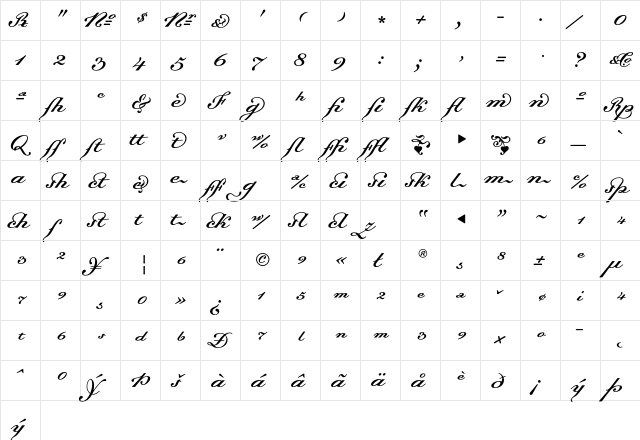
Dalliance ScriptLigatures
Design Context for Dalliance Typeface
Dalliance flows with the natural rhythm of handwritten lettering, making it ideal for designs that call for warmth and personal expression.
Font Pairing: Combine Dalliance with a simple geometric sans for maximum contrast — the tension between flowing curves and clean structure is a classic typographic pairing.
Pro Tip: Pair Dalliance with a clean sans-serif for supporting text. The contrast between fluid script and geometric structure creates an elegant typographic hierarchy.